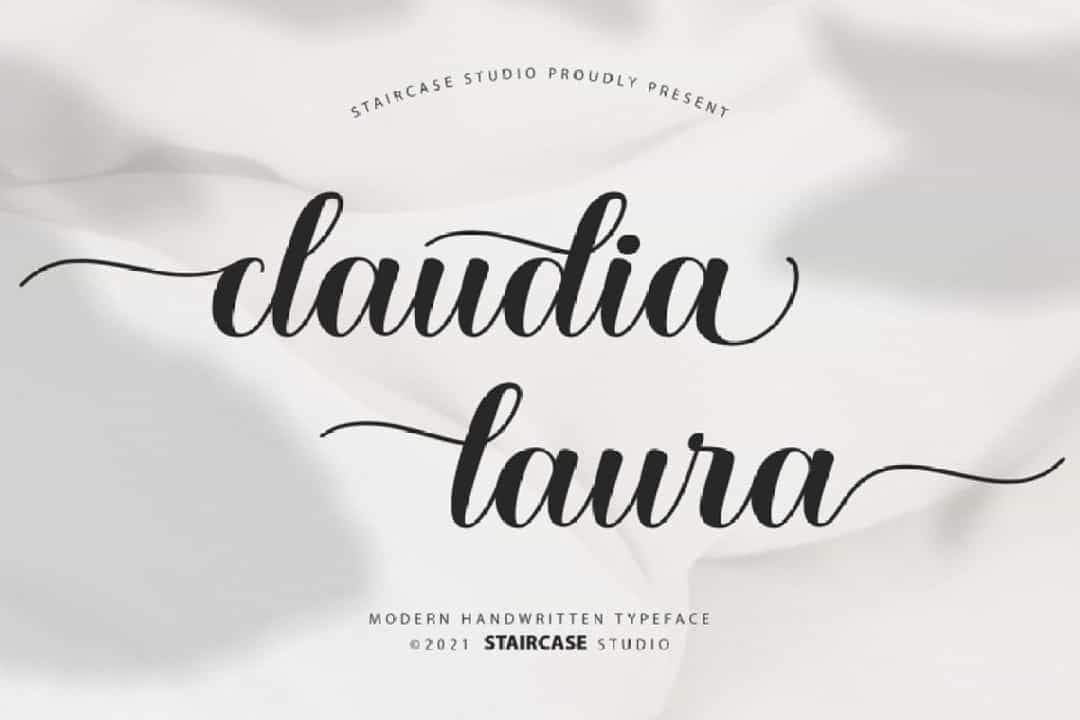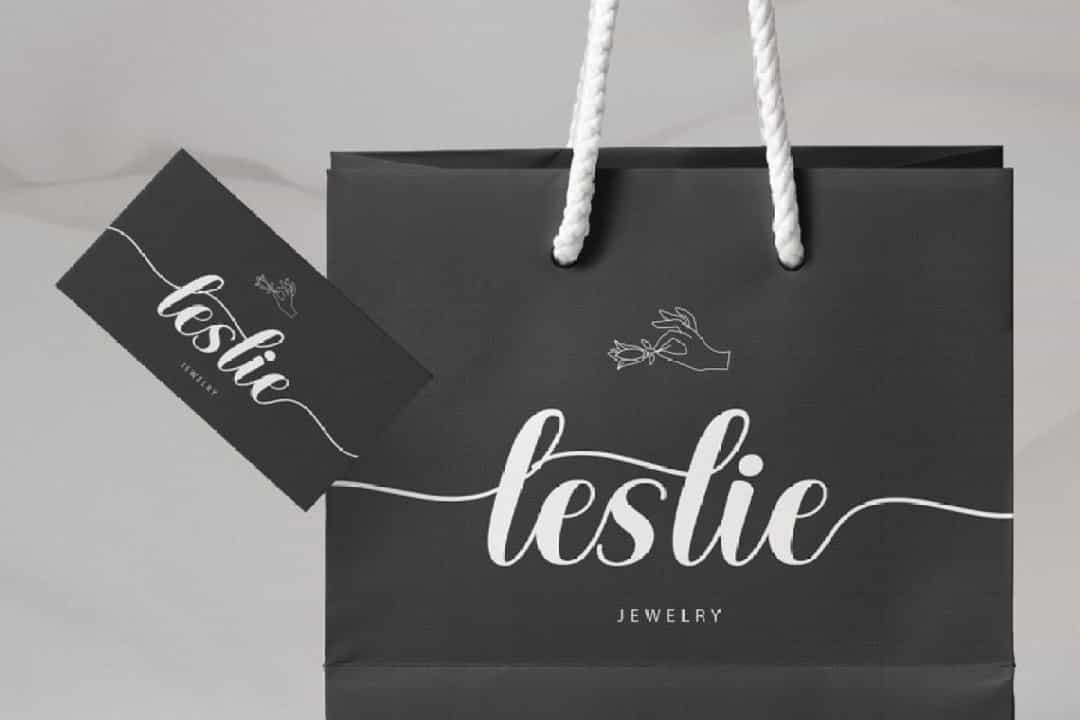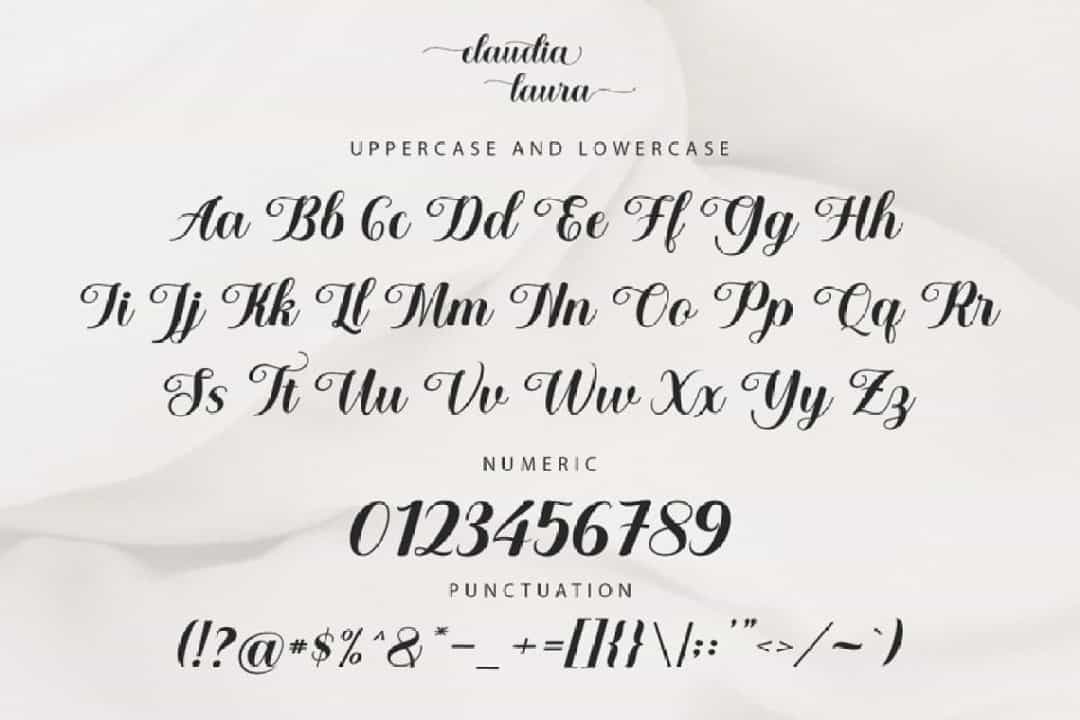
Claudia Laura by Staircase Studio is an elegant script typeface featuring simple yet high contrast lines, offering numbers and letters which are suitable for your designs. Ideal in logotype design, branding design, digital lettering arts (T-Shirt/Apparel printing/digital lettering arts/Digital Lettering Arts/Lettering arts etc).